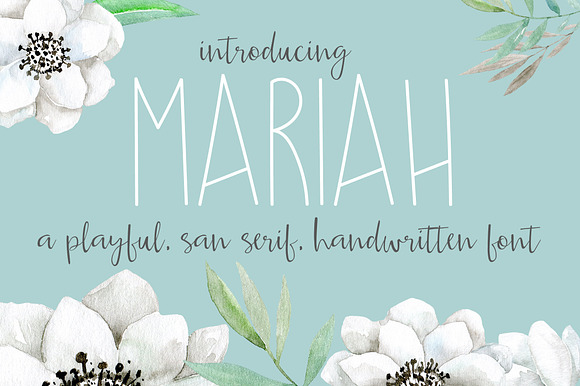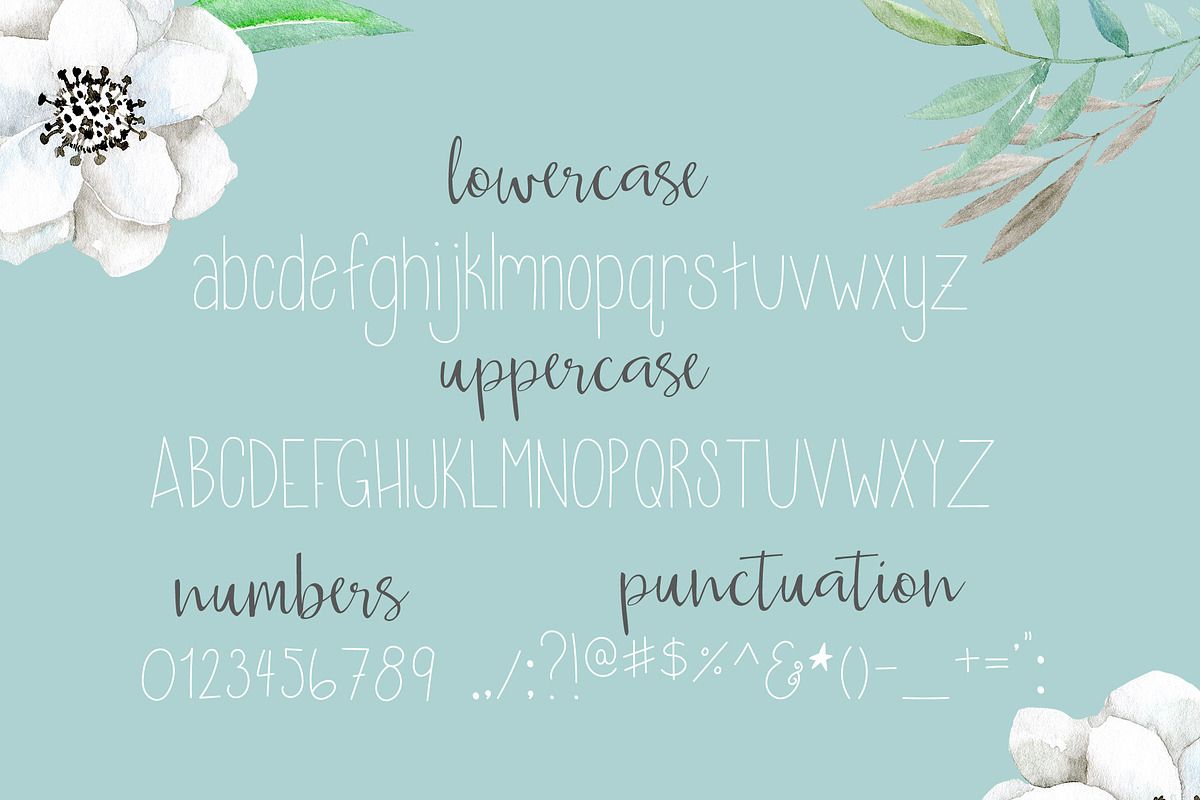
Mariah font
This handwritten, playful, and elegant font is great for posters, flyers, and design for physical products. Originally designed for text on coloring pages, it has been used for everyday communications and special event marketing.
Includes: a-z; A-Z; numbers; punctuation (see second picture for all characters)